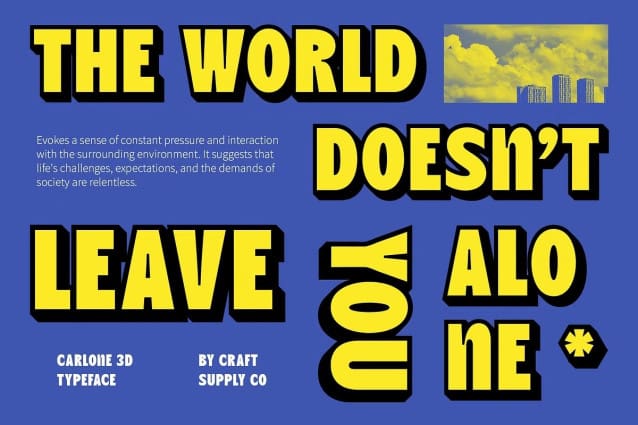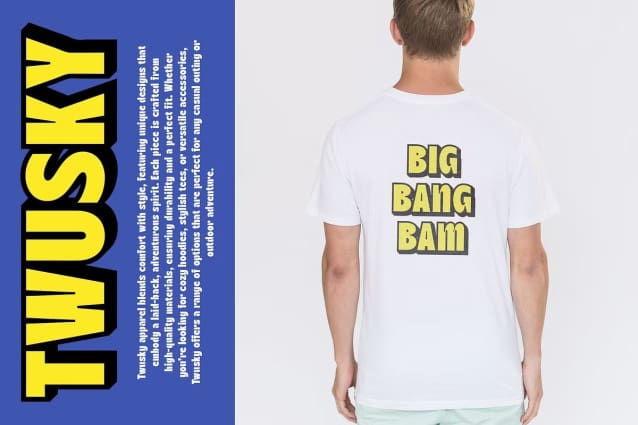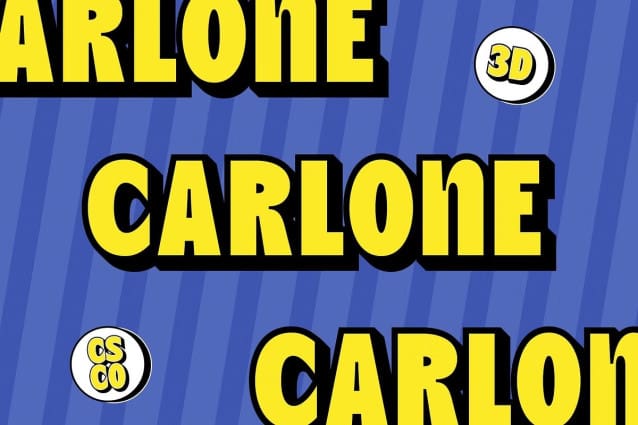
Carlone 3D Font
Carlone 3D Font is a modern sans serif font that captivates with its bold shapes and striking 3D effect, presenting a strong and dynamic visual impact. The clean lines and minimalist design of this font reflect a contemporary aesthetic, while its thick weight imbues each letter with a sense of solidity and confidence. This powerful combination makes Carlone 3D an exceptional choice for designs that demand attention and convey authority.
Impressive 3D Effect for Added Depth The standout feature of Carlone 3D is its remarkable three-dimensional effect, which adds depth and dimension to each letterform. This innovative design creates an illusion of volume, making the text not only more vibrant but also more engaging. The interplay of light and shadow enhances the overall visual appeal, ensuring that your designs resonate with a modern and impactful style. This effect allows the font to stand out in both digital and print formats, making it versatile for various applications.
Ideal for Powerful Visual Statements Carlone 3D excels in projects that require a powerful visual statement. Its commanding presence makes it perfect for posters, logos, and modern branding initiatives that aim to leave a lasting impression. The boldness of the font draws the viewer’s eye, while the 3D effect provides an engaging twist that elevates the overall design.